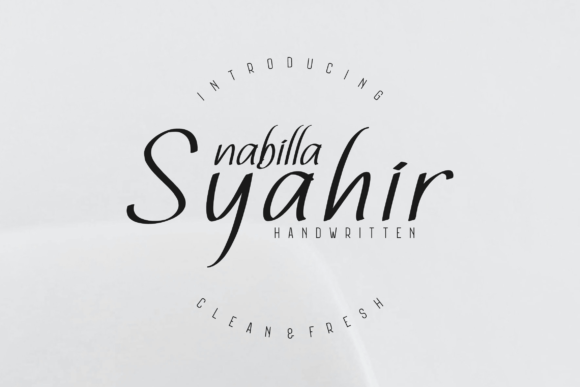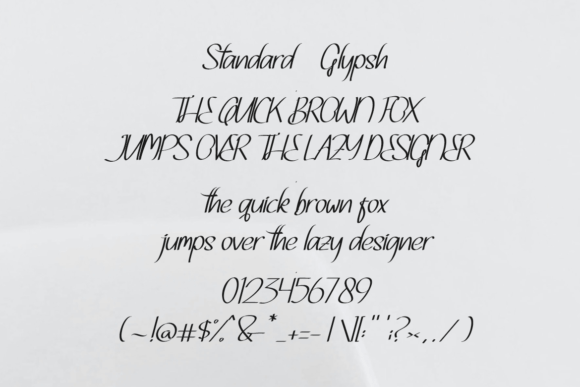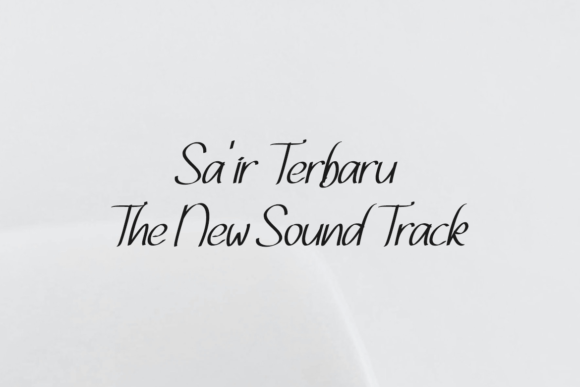
Nabilla Syahir Font
About Nabilla Syahir Font
Nabilla Syahir is a fresh and classy handwritten script font. Fall in love with its incredibly distinct and timeless style and use it to create spectacular designs!